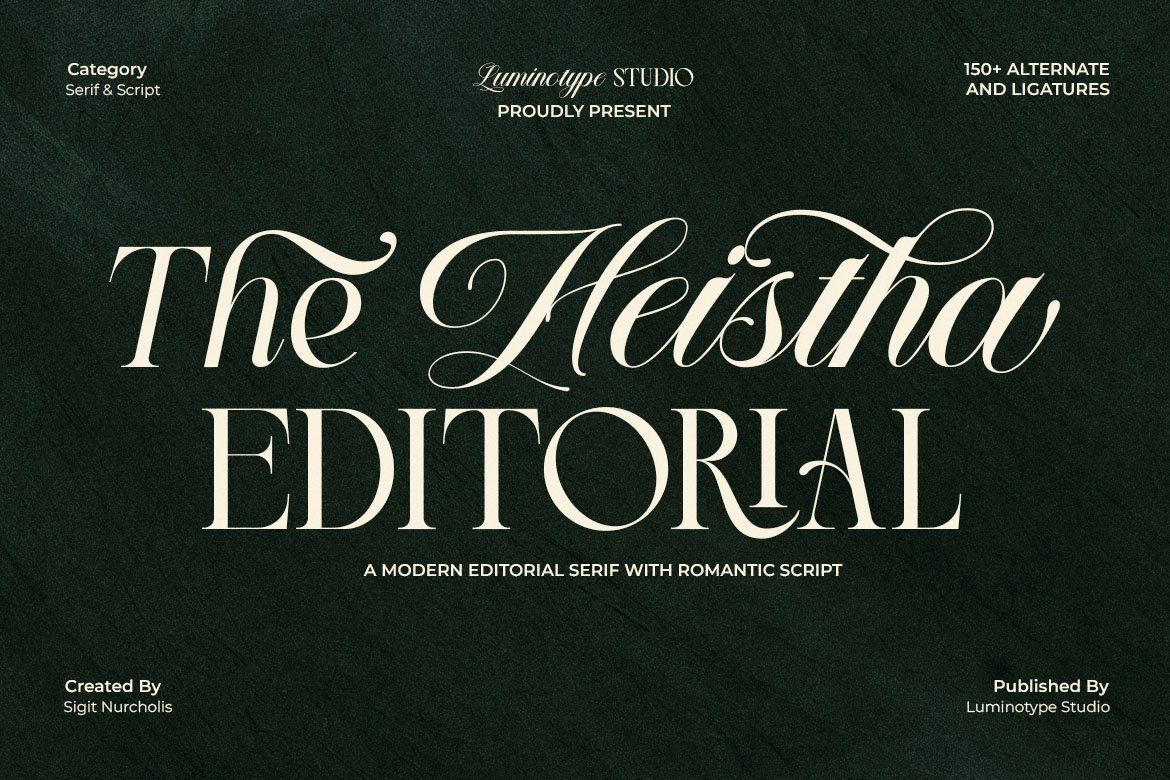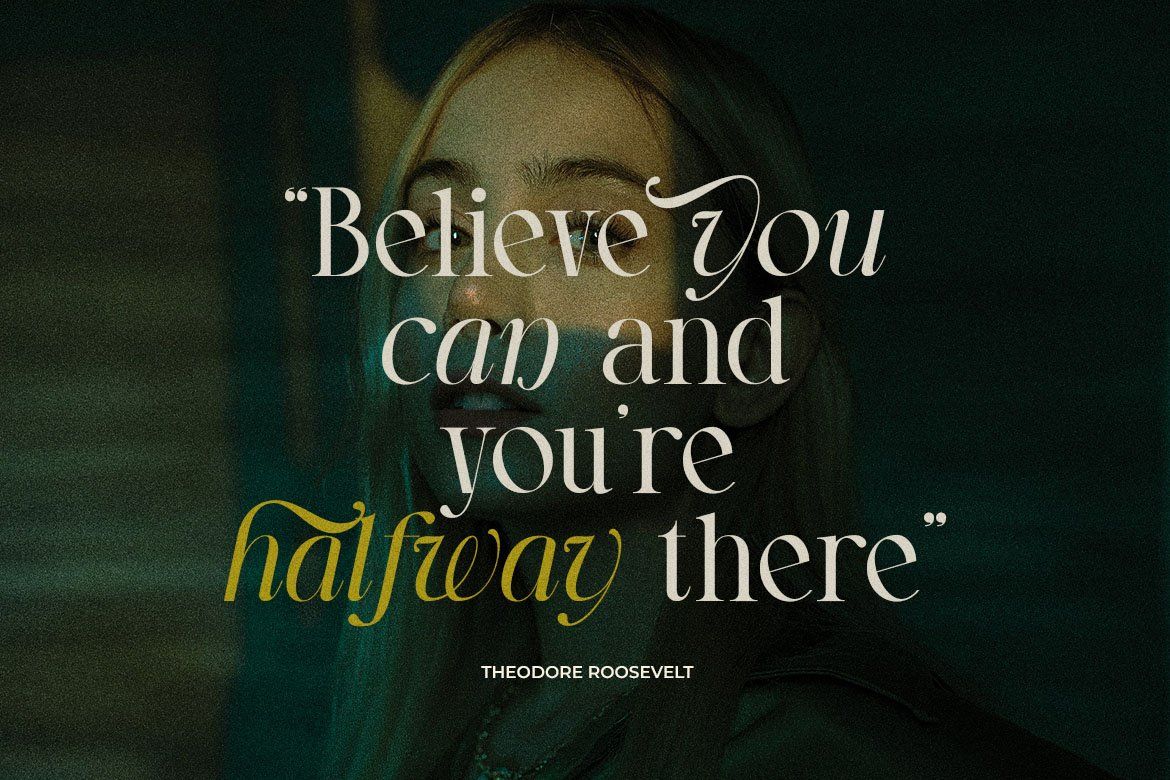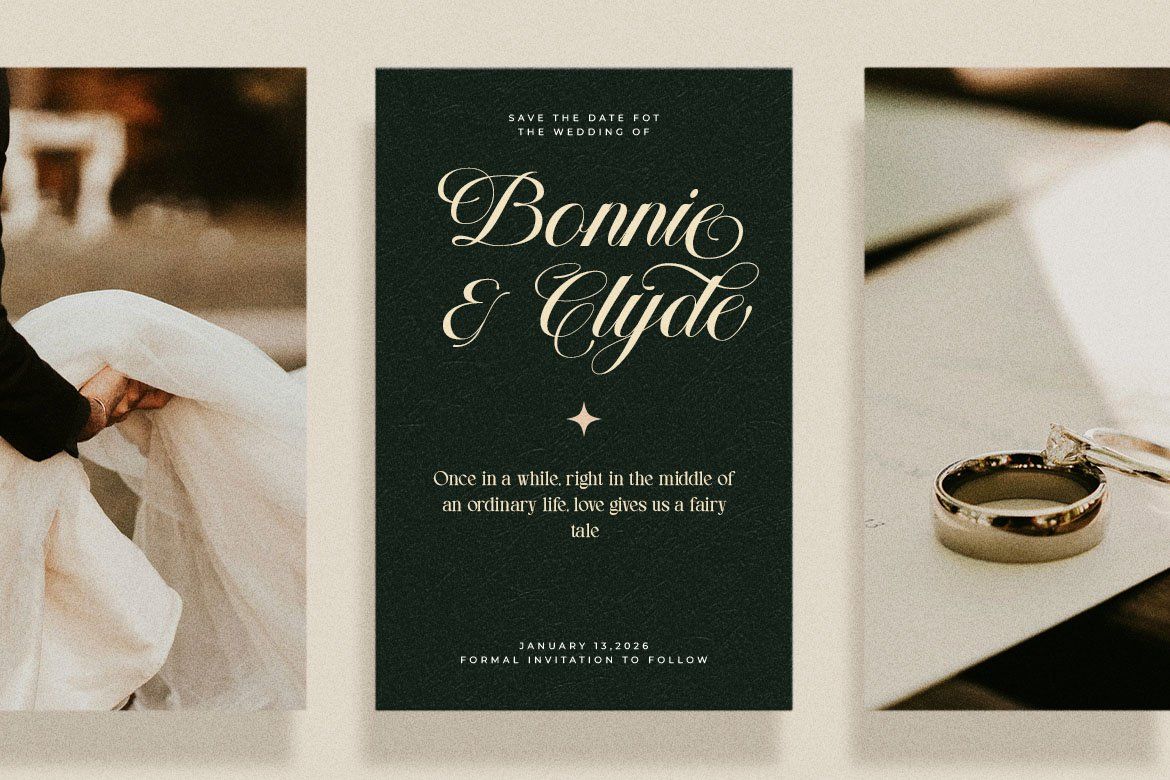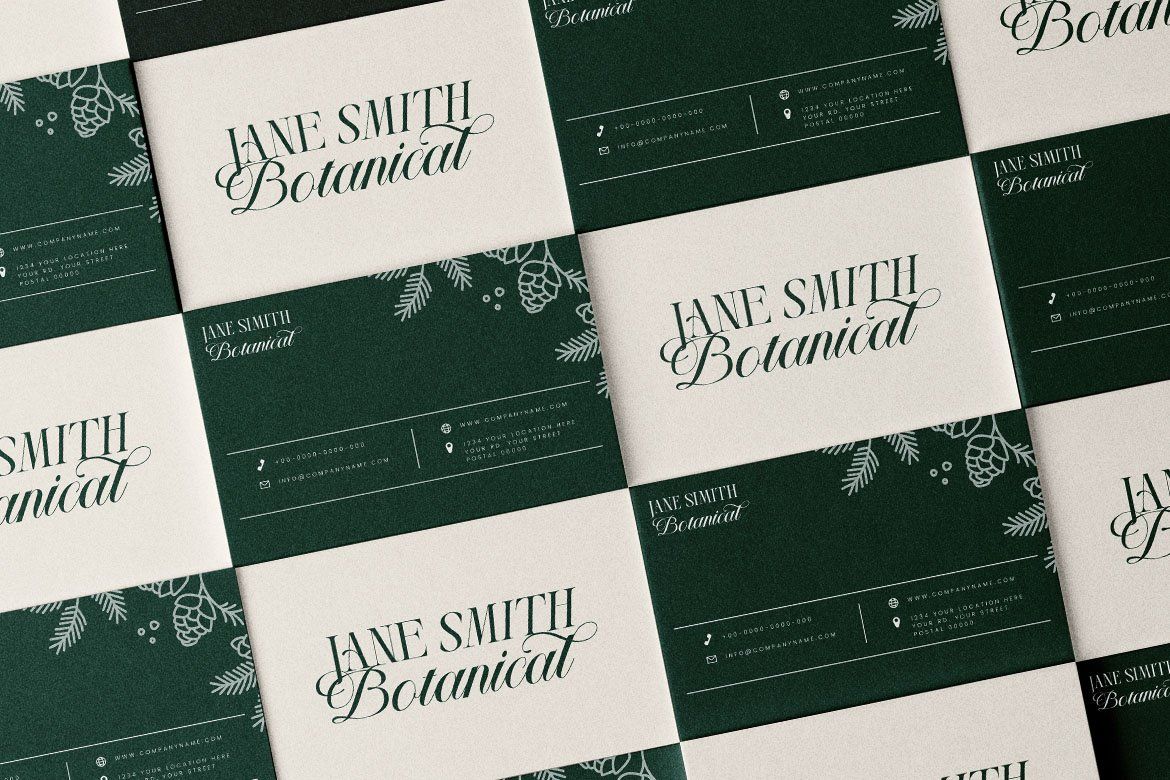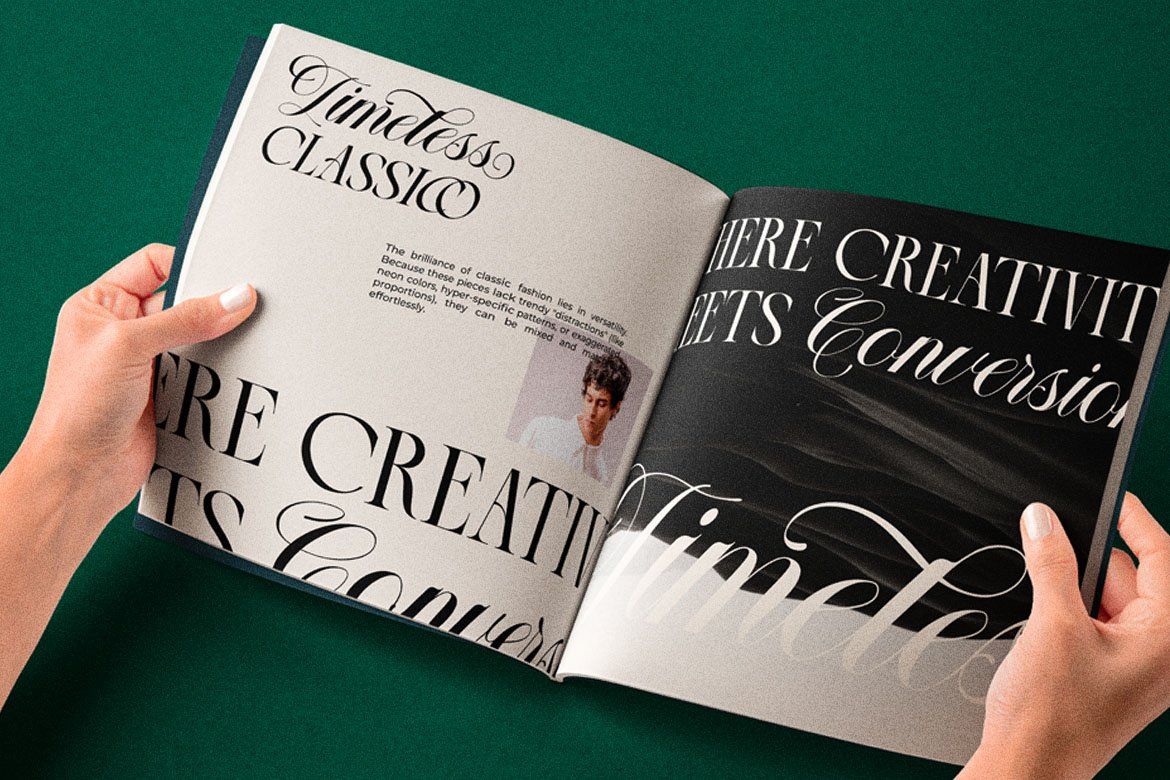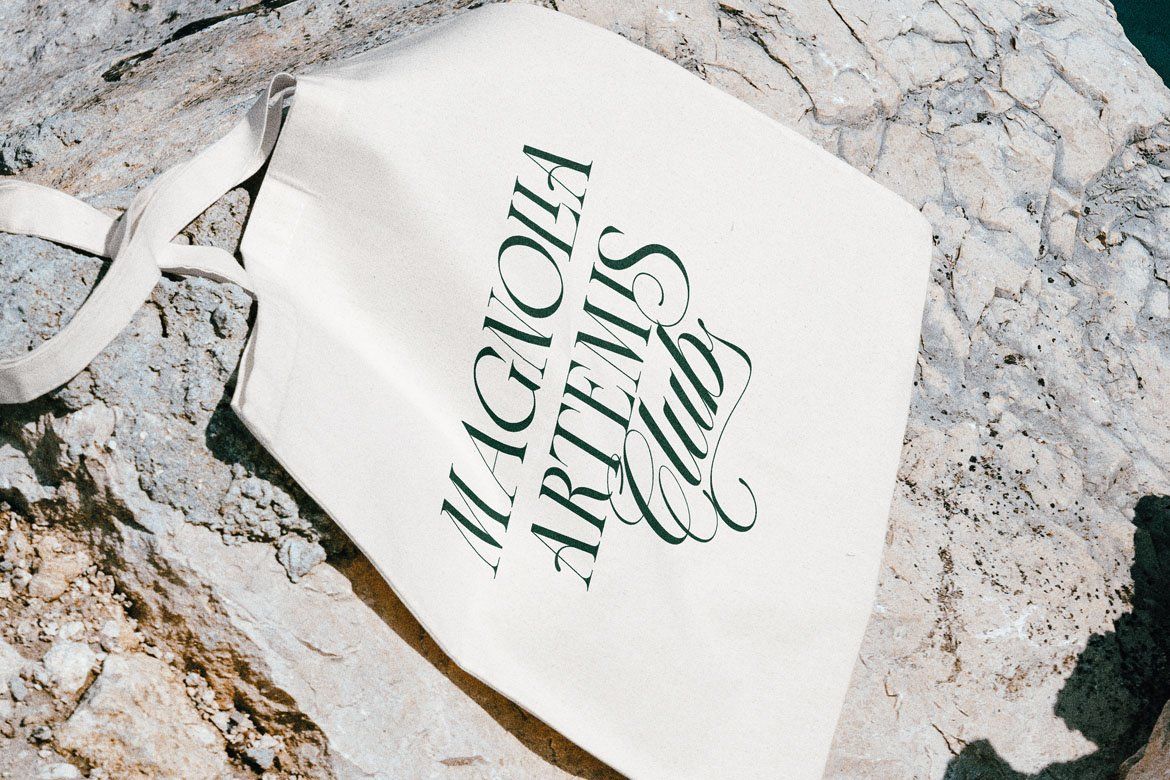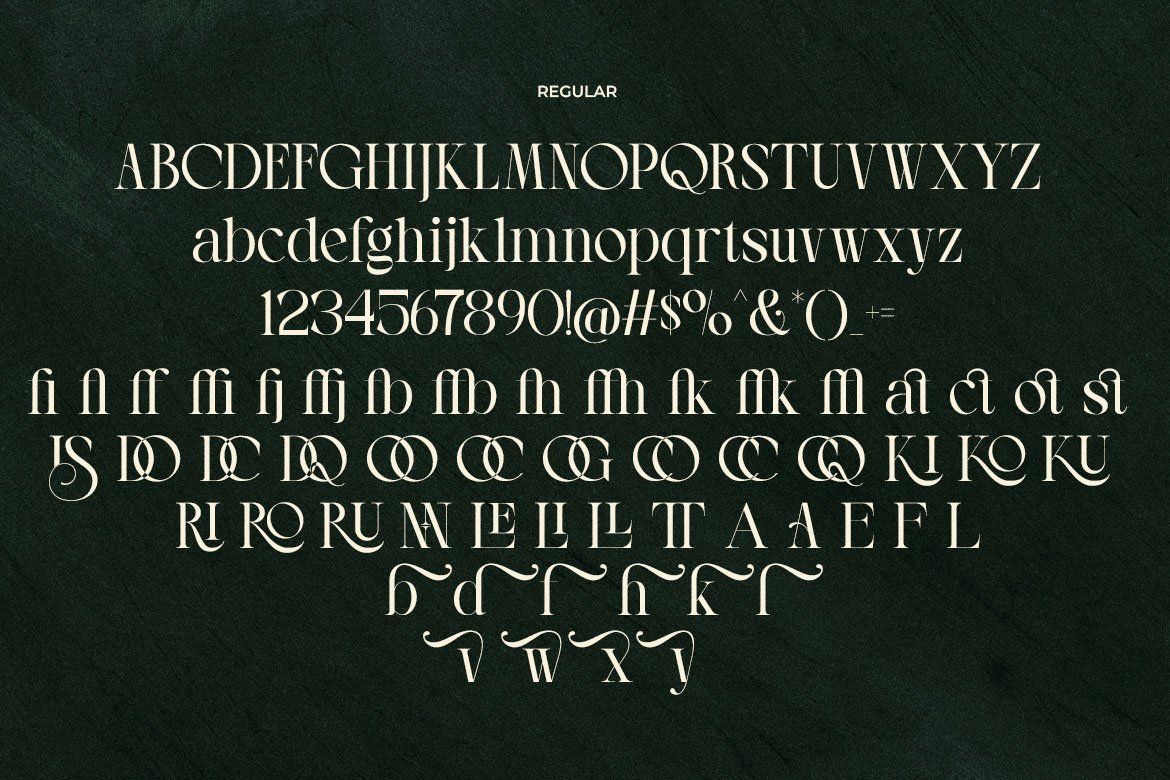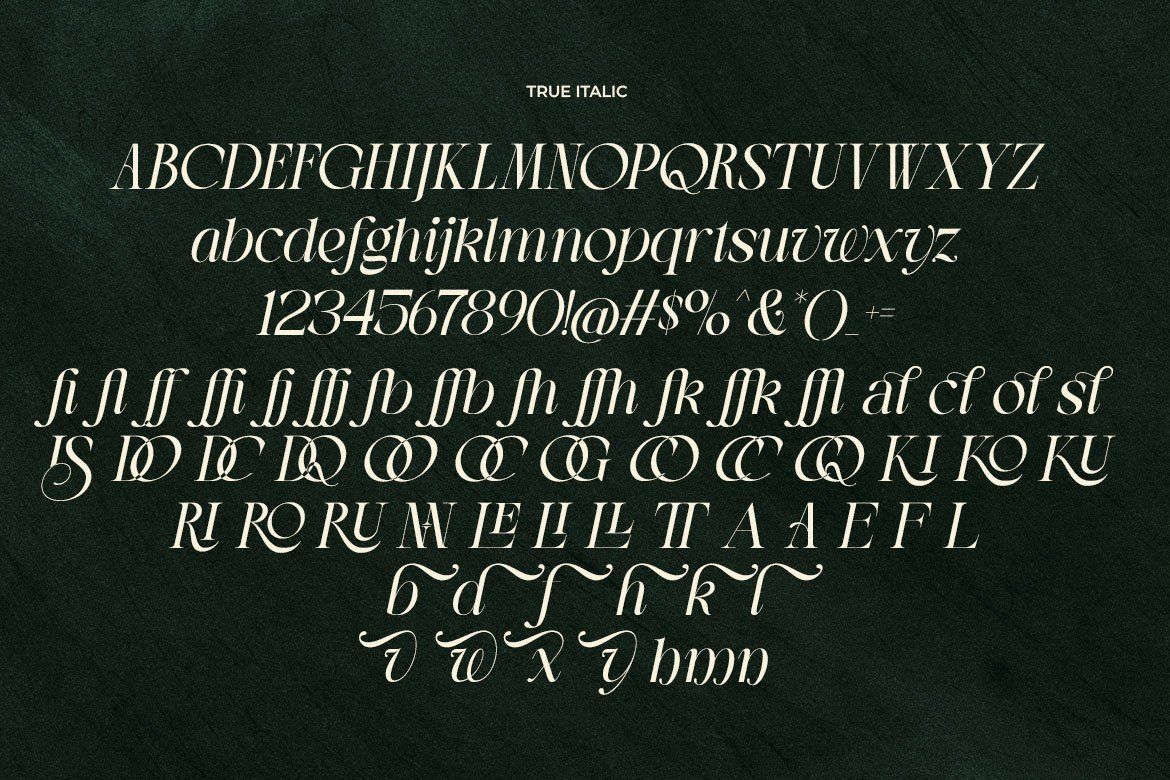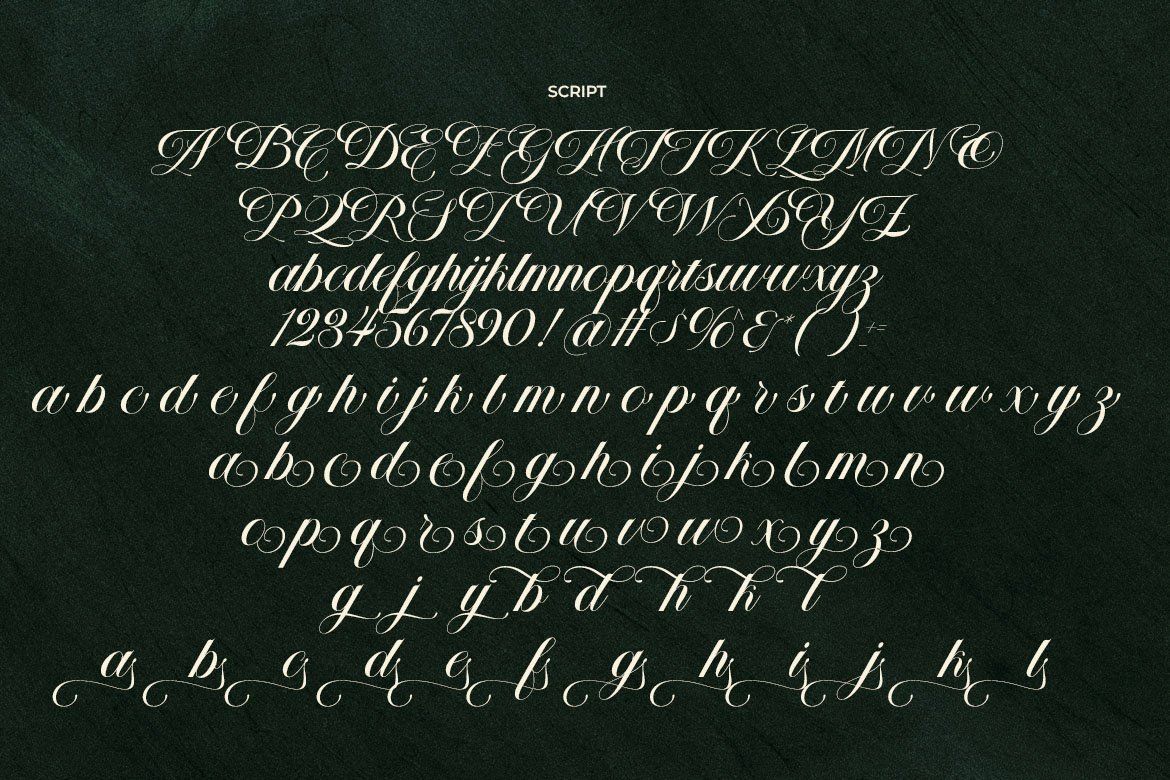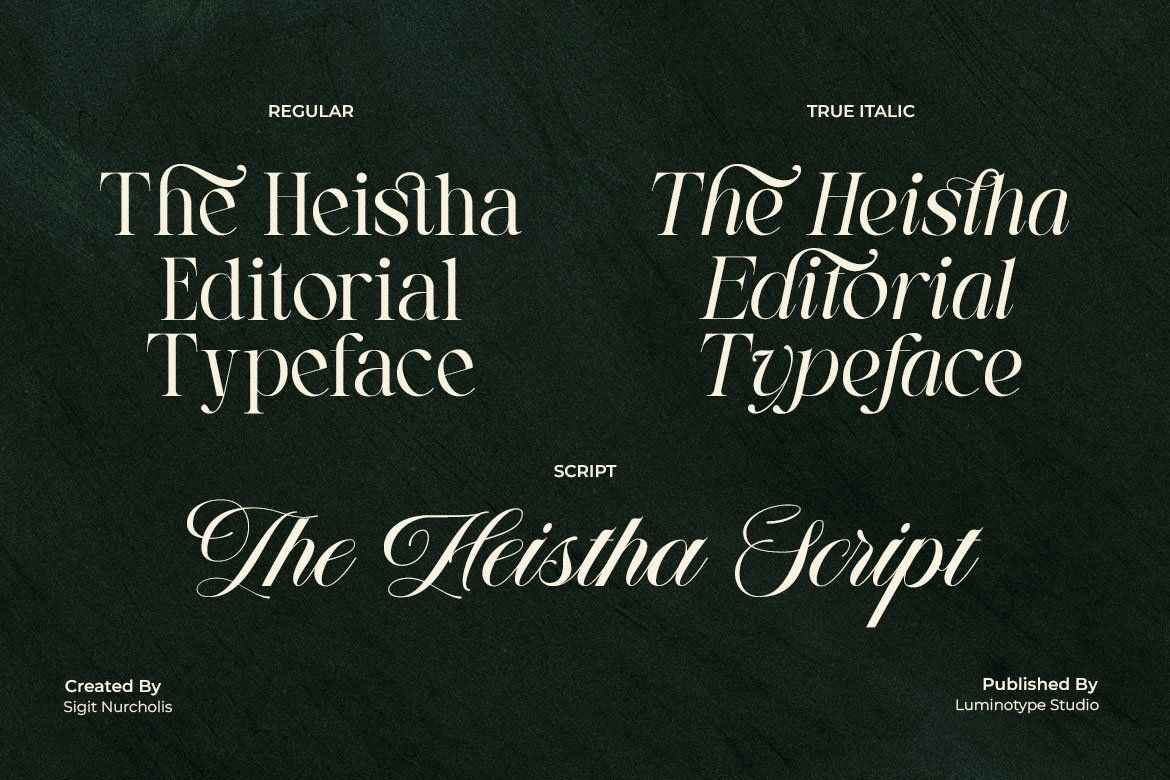
Elevate your design projects with The Heistha Editorial, a stunning font duo that embodies timeless sophistication. By perfectly pairing a refined, modern serif font with a sweeping, elegant script, this collection is meticulously crafted to infuse your work with a premium, classy aesthetic.
The Heistha Editorial offers incredible versatility for creatives looking to make a bold, professional statement. It is flawlessly best used in luxury logos, exquisite product packaging, cinematic movie titles, captivating posters, high-fashion editorial layouts, and striking website headers.
– Character Set : Includes a full set of Uppercase and Lowercase
– Numerals & Punctuation
– Multilingual Support
– PUA Encoding